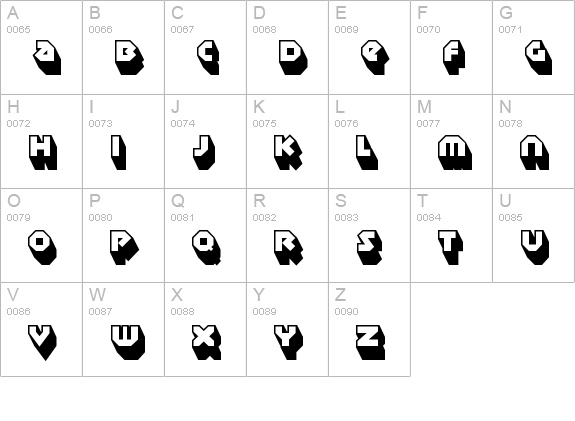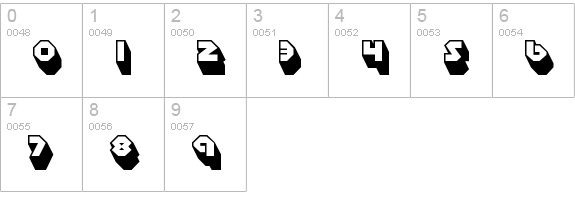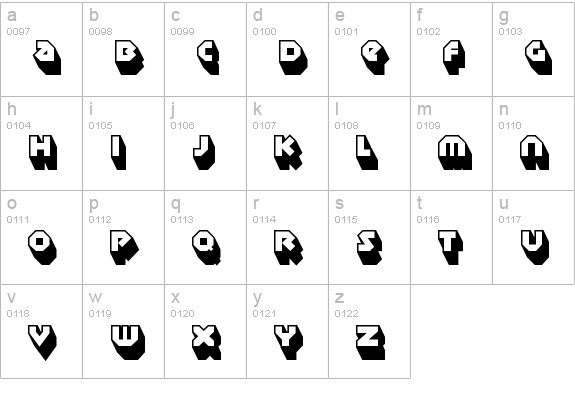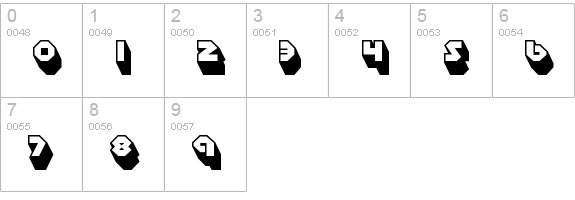
Sudbury Basin 3D Font Details
The Sudbury Basin 3D font is a visually striking and dynamic typeface that adds depth and dimension to any design project. With its bold 3D effect and modern aesthetic, this font is sure to make a statement and captivate the attention of viewers. Whether you're creating posters, logos, or social media graphics, Sudbury Basin 3D font will bring your designs to life with its unique style. Best of all, Sudbury Basin 3D font is available for free download at FontsMarket.com, making it easily accessible to designers and creatives looking to elevate their work without breaking the bank. Don't miss out on this opportunity to add a touch of sophistication and flair to your projects with the Sudbury Basin 3D font. Download it today and unleash your creativity!